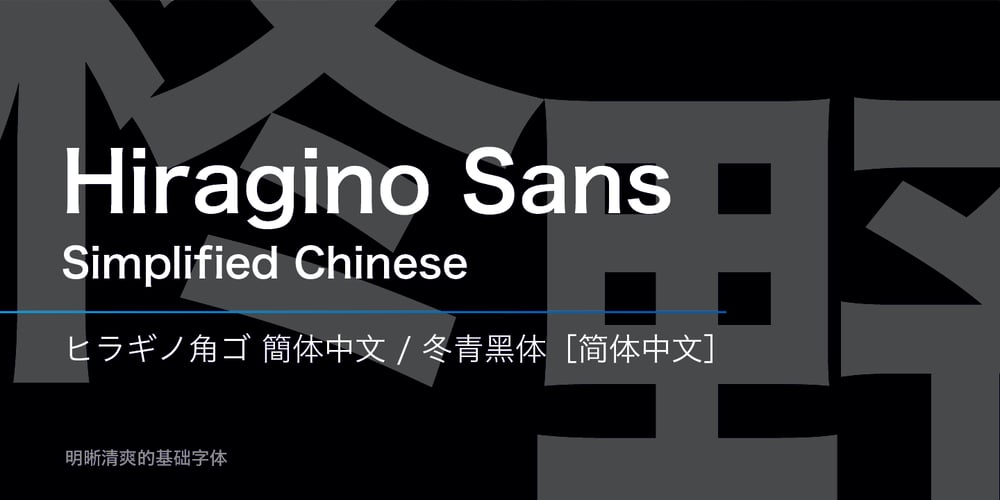
Hiragino Sans GB
Hiragino Sans GB font
Hiragino Sans GB Font Family was designed by published by SCREEN Graphic Solutions. Hiragino Sans GB contains 2 styles and family package options. Based on the Hiragino Sans (Kaku Gothic) design, this is the first Chinese-language font from a Japanese font manufacturer to be certified compliant with China’s GB 18030-2000 standard. Unique features are a contemporary typeface design that sets it apart from existing Chinese typefaces and a dedication to high quality down to the slightest detail. Multi-language composition using both Japanese and Chinese Hiragino fonts offer a sense of unity With demand growing rapidly in China, Hiragino Sans Simplified Chinese is the optimal font for uses in those fields that need both readability and contemporary vibe such as product packaging, catalogues, books, magazines, websites, and sign and displays.